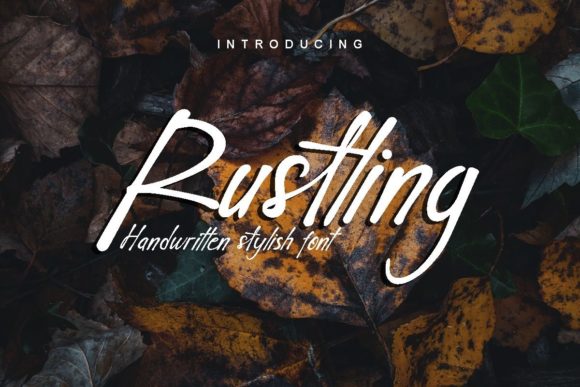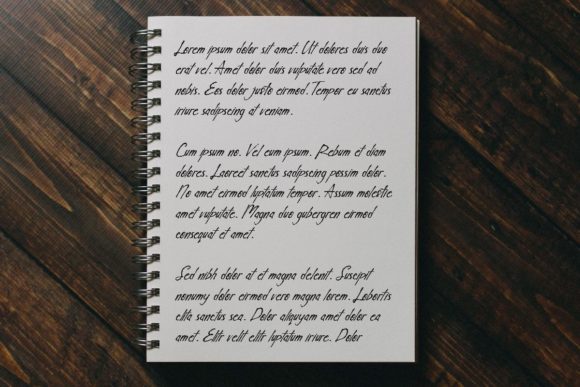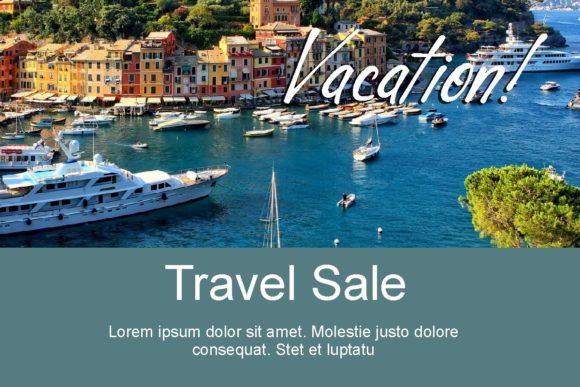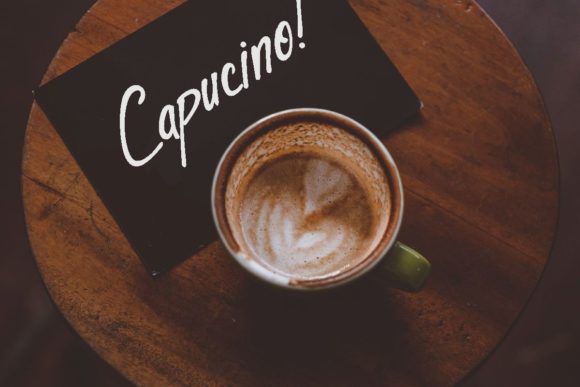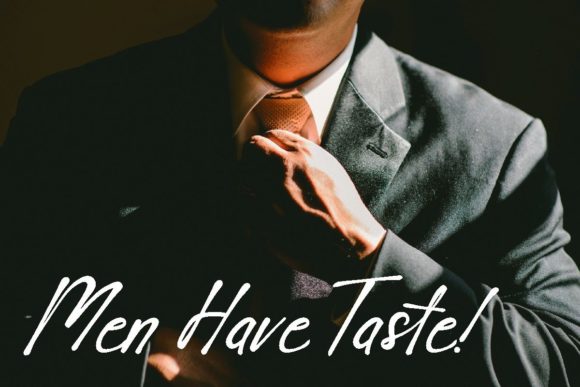
Rustling Font
About Rustling Font
Rustling is an adaptable and flowing handwritten font. Whether you’re looking for fonts for Instagram or calligraphy scripts for DIY projects, this font will turn any creative idea into a true piece of art!